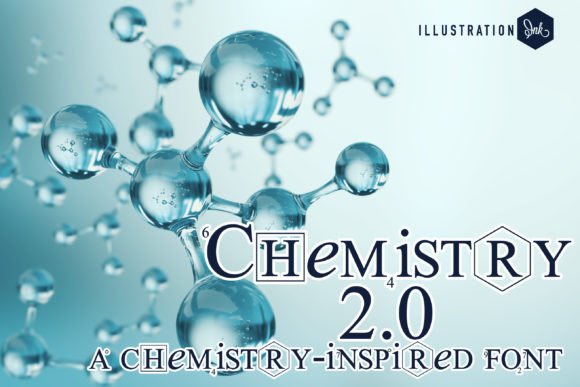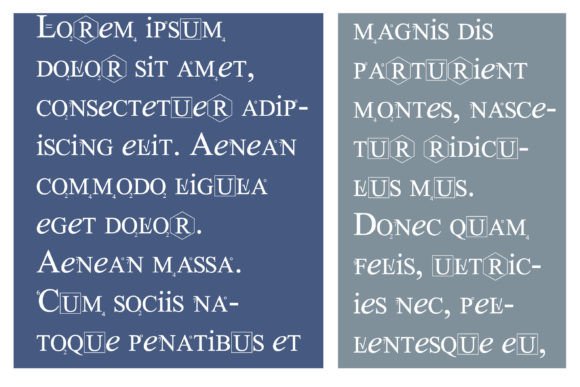
Chemistry 2.0 is a fun serif display font that has many science and chemistry symbols highlighting letters. Add it to your back-to-school or science-related projects and you will love the results!
Chemistry 2.0 Font